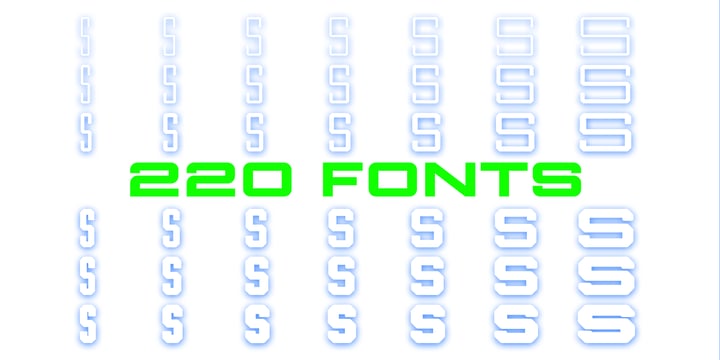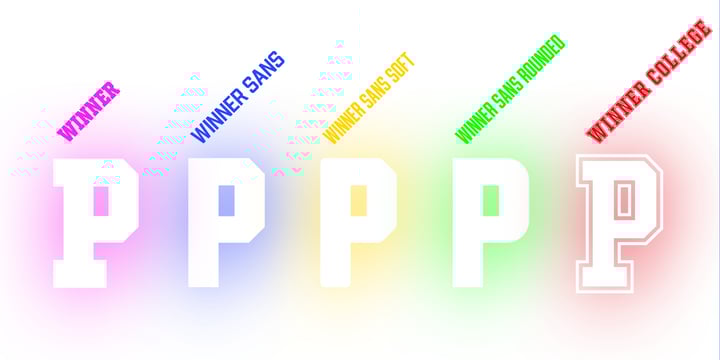
Mega Winner
ALL styles of the Winner superfamily, to suit all of your sports typographic needs! Contains:
✱ Winner™ (49 styles)
✱ Winner Sans™ (49 styles)
✱ Winner Sans Rounded™ (49 styles)
✱ Winner Sans Soft™ (49 styles)
✱ Winner College™ (24 styles)